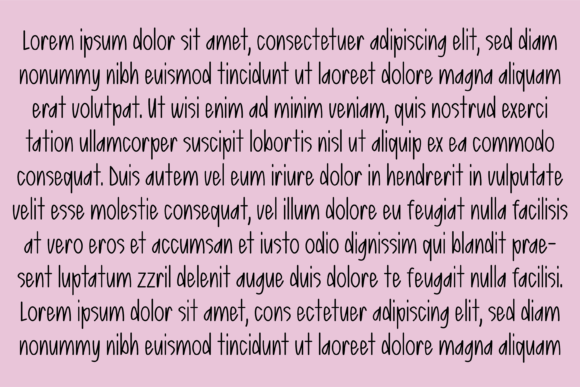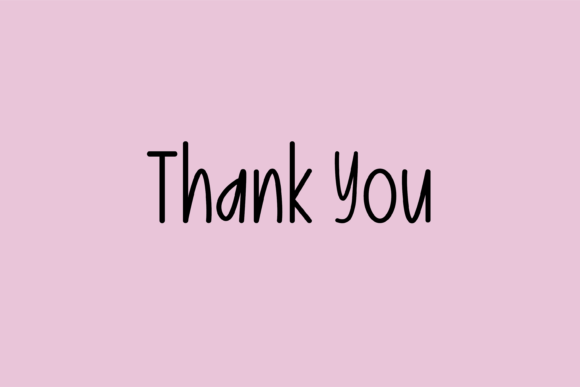
Introducing Chaugnar Font: The Perfect Handwritten Companion for Your Design Projects
In the world of typography, fonts play a crucial role in conveying the tone and personality of a design. Whether you’re a seasoned designer or a crafty DIY enthusiast, finding the right font can make all the difference in bringing your creative vision to life. If you’re on the hunt for a simple, friendly, and whimsical handwritten font, look no further than Chaugnar. This charming typeface is sure to brighten up your designs and leave a lasting impression.
The Charm of Chaugnar Font
Chaugnar is a beautifully crafted handwritten font that exudes warmth and approachability. Its simple yet distinctive design makes it perfect for a wide range of applications, from logos and wedding invitations to quotes, advertisements, and more. With its whimsical and slightly quirky flair, Chaugnar adds a touch of personality to any design, making it an excellent choice for designers and crafters looking to create something truly unique.
Key Features of Chaugnar Font
- Handwritten with love: Chaugnar boasts a genuine handwritten feel, complete with subtle imperfections and a dash of character.
- Simple and friendly: The clean and uncomplicated design of Chaugnar makes it easy to read and understand, perfect for conveying your message with clarity.
- Whimsical and quirky: A hint of playfulness and quirkiness sets Chaugnar apart, adding a touch of whimsy to your designs.
- Highly versatile: Chaugnar is suitable for a wide range of applications, including logos, wedding invitations, quotes, advertisements, print materials, magazines, and more.
Why Choose Chaugnar Font?
With so many fonts to choose from, why should you opt for Chaugnar? Here are just a few compelling reasons:
- Easy to read: Chaugnar’s clear and simple design ensures that your message is communicated effectively, without overwhelming the reader.
- Unique and distinctive: Chaugnar’s handwritten charm sets it apart from more traditional fonts, giving your designs a personal touch.
- Time-saving: With Chaugnar, you can create stunning designs in no time, thanks to its effortless elegance and versatility.
- Confidently creative: Add Chaugnar to your projects with confidence, knowing that it will elevate your designs and leave a lasting impression.
Whether you’re a professional designer or a crafty DIY enthusiast, Chaugnar is the perfect companion for your creative projects. Its versatility and charm make it an excellent choice for:
- Logos and branding: Create a memorable and distinctive logo that reflects your brand’s personality.
- Wedding invitations and stationery: Add a touch of whimsy and romance to your wedding stationery with Chaugnar.
- Quotes and posters: Make your quotes and posters stand out with Chaugnar’s playful and eye-catching design.
- Advertisements and marketing materials: Use Chaugnar to create eye-catching ads and marketing materials that capture your audience’s attention.
- Print materials and magazines: Add a personal touch to your print materials and magazines with Chaugnar’s unique and charming design.
| Font Name | Chaugnar Font |
| Author | Woracado |
In conclusion, Chaugnar font is a simple, friendly, and whimsical handwritten font that’s perfect for designers and crafters looking to add a touch of personality to their creative projects. With its effortless elegance, versatility, and charm, Chaugnar is sure to brighten up your designs and leave a lasting impression. So why wait? Add Chaugnar to your projects today and experience the difference for yourself!